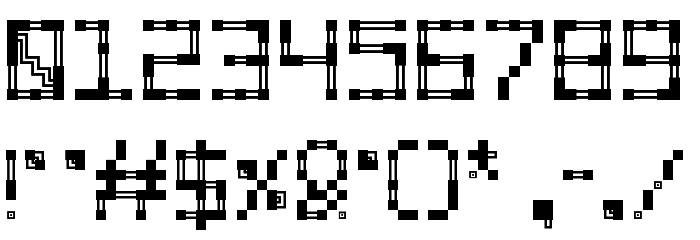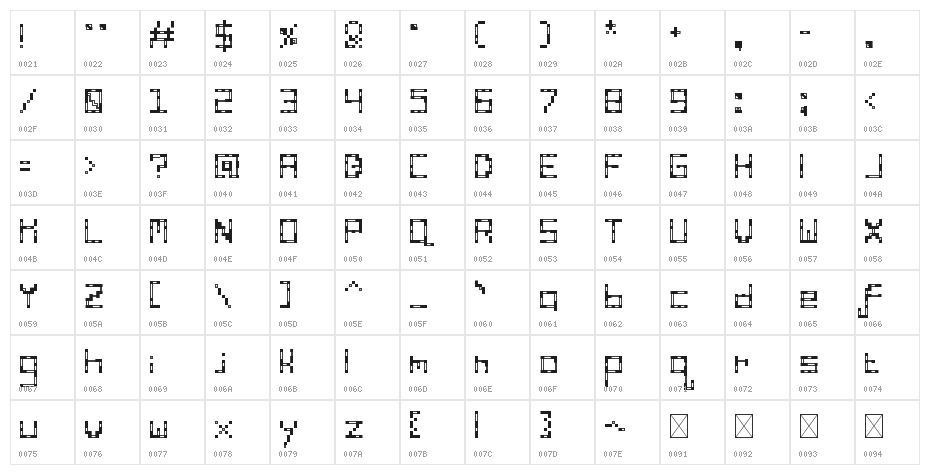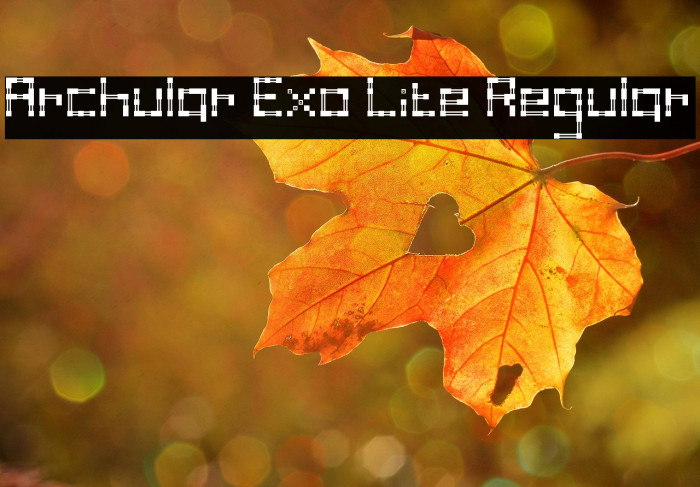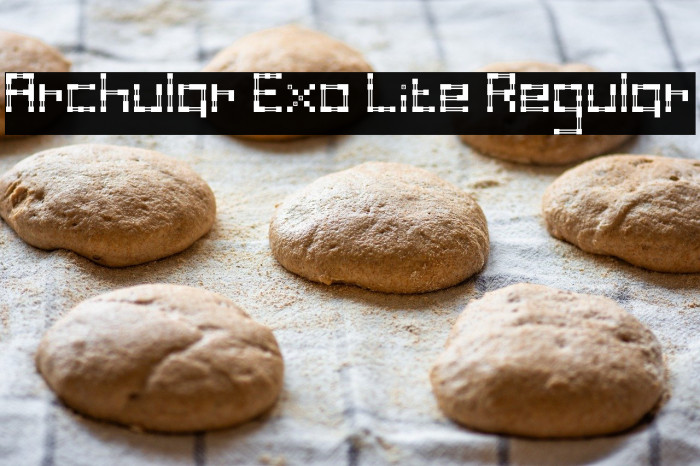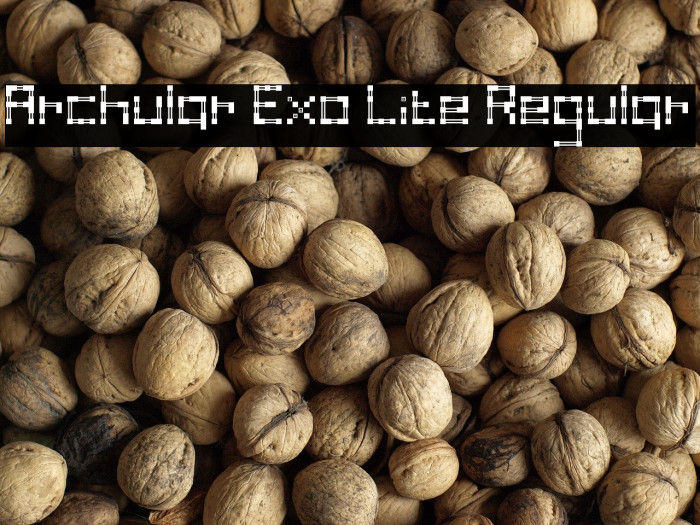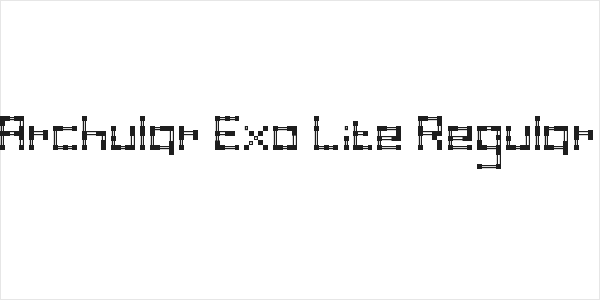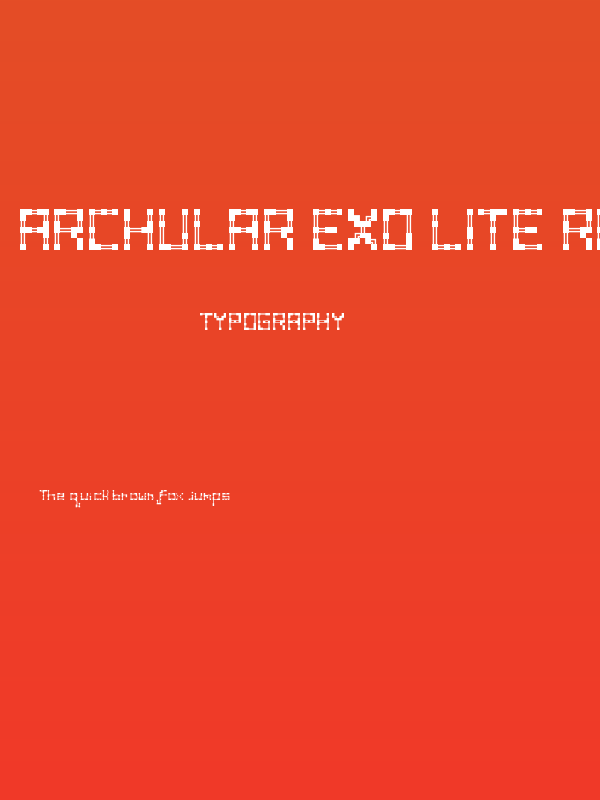
Archular Exo Lite Regular Font
Archular Exo Lite Regular Description
This font features a unique, pixelated design that gives it a digital, retro appearance. Each character is constructed with a series of small, square blocks, creating a grid-like effect. The uppercase and lowercase letters maintain a consistent height, contributing to a uniform look. The numbers and special characters follow the same pixelated style, ensuring cohesion across all elements. The font's distinct style makes it ideal for projects that aim to evoke a sense of nostalgia or a digital theme. Its geometric structure is both eye-catching and functional, making it suitable for creative and modern designs.
| Use Case | Logos, Headlines, Digital art |
| Proposed Projects | Ideal for video game graphics, digital art projects, retro-themed designs, and tech-related branding. |